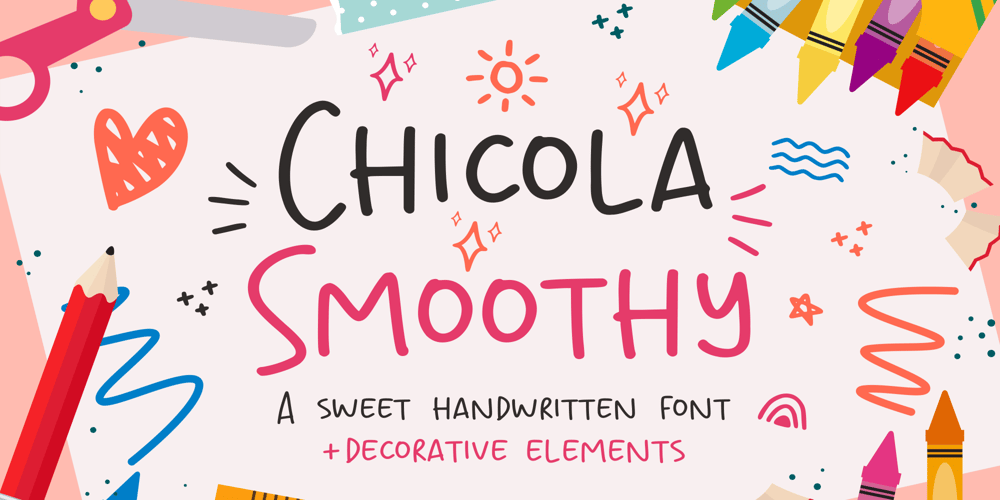
Chicola Smoothy Font Family was designed by Fachrizal Yusuf and published by Allouse Studio. Chicola Smoothy contains 1 styles and family package options. Proudly Presenting, Chicola Smoothy a Sweet Handwritten Font plus Decorative Elements.Chicola Smoothy is perfect for any titles, logo, product packaging, branding project, megazine, social media, wedding, or just used to express words above the background.Chicola Smoothy also come with Multi-Lingual Support.Enjoy the font, feel free to comment or feedback, send me PM or email. Thank You!